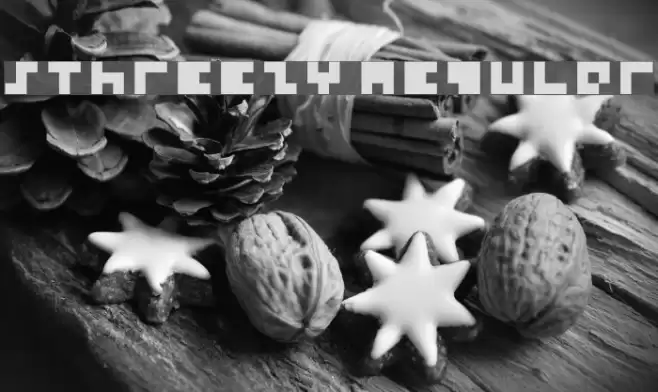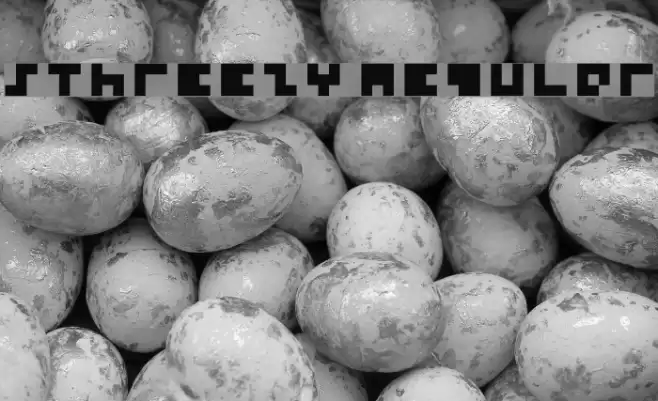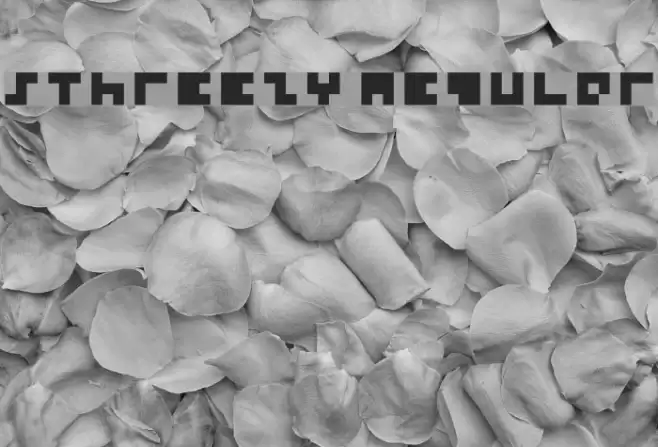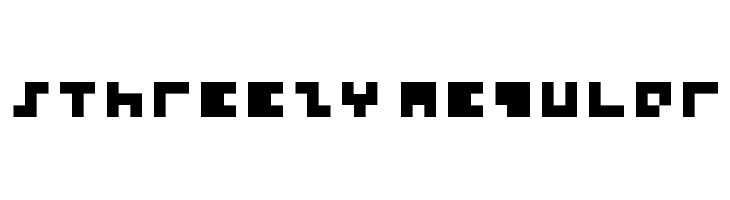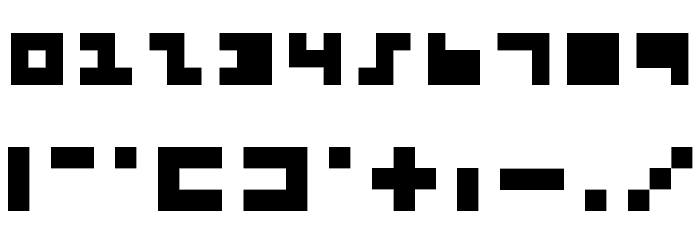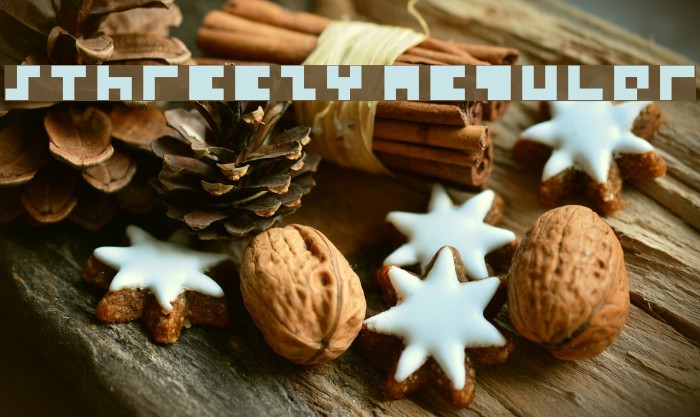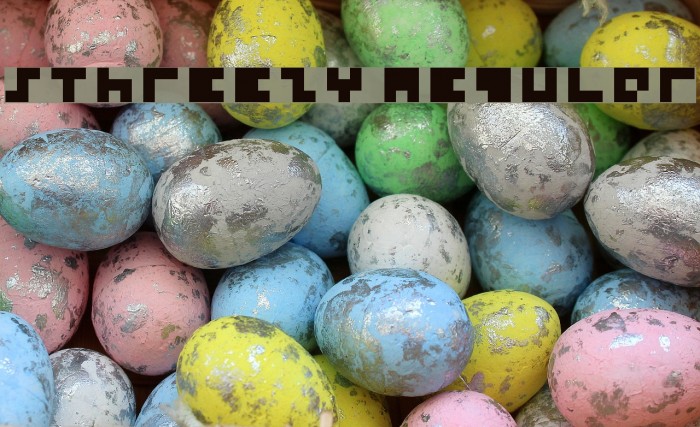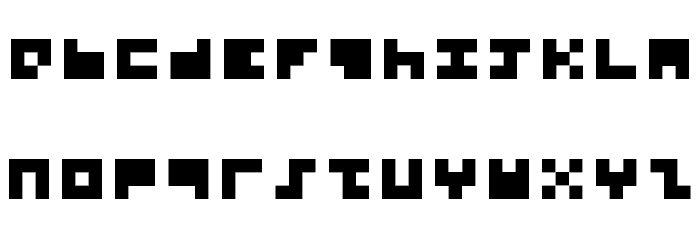
5Threezy Regular Font
5Threezy Regular Description
This font features a bold, geometric style with a pixelated, blocky appearance. Each character is constructed with sharp, angular edges, giving it a distinctly digital and modern look. The uniformity in the design creates a cohesive and structured aesthetic, reminiscent of early computer graphics or retro video games. The uppercase and lowercase letters share a similar design, maintaining consistency across the alphabet. Numbers and special characters follow the same stylistic approach, ensuring a seamless integration within any text. The font's unique style makes it stand out, offering a visually striking option for various creative projects.
A bold, geometric, pixelated font with a modern, digital aesthetic from Uncategorized fonts.
- Proposed Projects: Ideal for video game design, digital art projects, tech-themed posters, or any creative work requiring a retro digital feel.